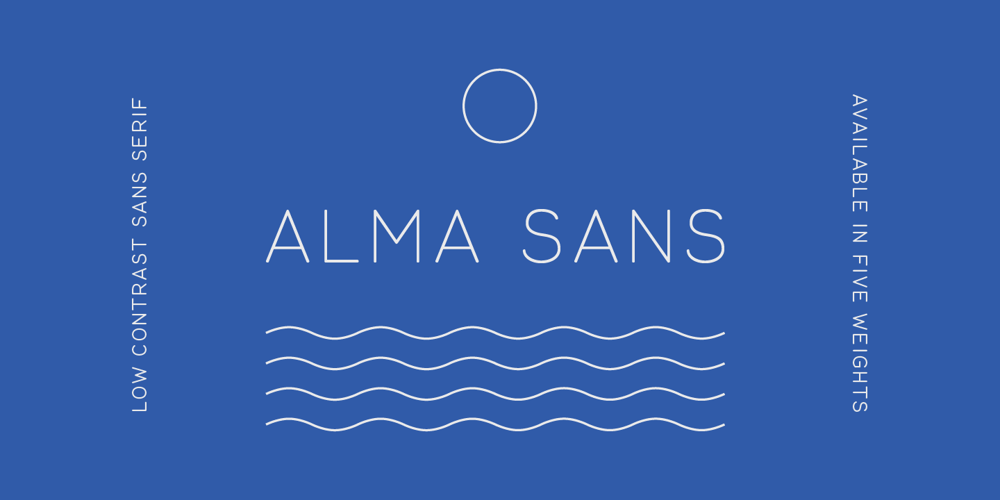
Alma Sans Font Family was designed by Daniel Feldt and published by Great Scott. Alma Sans contains 4 styles and family package options. Alma Sans is a low contrast sans-serif based on simple geographic shapes. It has friendly demeanor with rounded edges and curved ears & spurs.Alma Sans is available in 5 weights.Supports 28 languages: Afrikaans, Albanian, Catalan, Croatian, Czech, Danish, Dutch, English, Estonian, Finnish, French, German, Hungarian, Icelandic, Italian, Latvian, Lithuanian, Maltese, Norwegian, Polish, Portugese, Romanian, Slovak, Slovenian, Spanish, Swedish, Turkish, Zulu.